Behind the Scenes in Typeface Creation: “When I See TP Typeface”
Type Project’s fonts can be seen everywhere- posters displayed on trains, book covers, product packages, art museum signage, etc. There are also articles on example of usage in the staff blog; we report to each other in the company when we see them.
Shortly after joining the company, I consciously searched for Type Project’s fonts after seeing characters while commuting or out. In the beginning, I didn’t have the confidence to distinguish these fonts just by looking at them, so I took photographs and verified them later on.
I want to list shapes that were easy to remember, in my case. For kana, “あ, お, き, and ら” in the AXIS Font, TP Sky, and TP Mincho were easy to remember. Even in other fonts apart from Type Project, when I see another typeface made by the same creator, I vaguely imagine what the feeling and characteristic of lines of the creator are reflected on certain brush movements, and how they were made into characteristic shapes.
For kanji, the hook, the elegance of the shape of widening to the end of a dot, the right sweep, etc. in TP Sky High and Middle are distinguishable; for TP Mincho, a rounded uroko and roundness in the end of a brushstroke of dot in Low and Middle were easy to remember. In addition, detailed shapes and contrasts in each font were easy to remember.
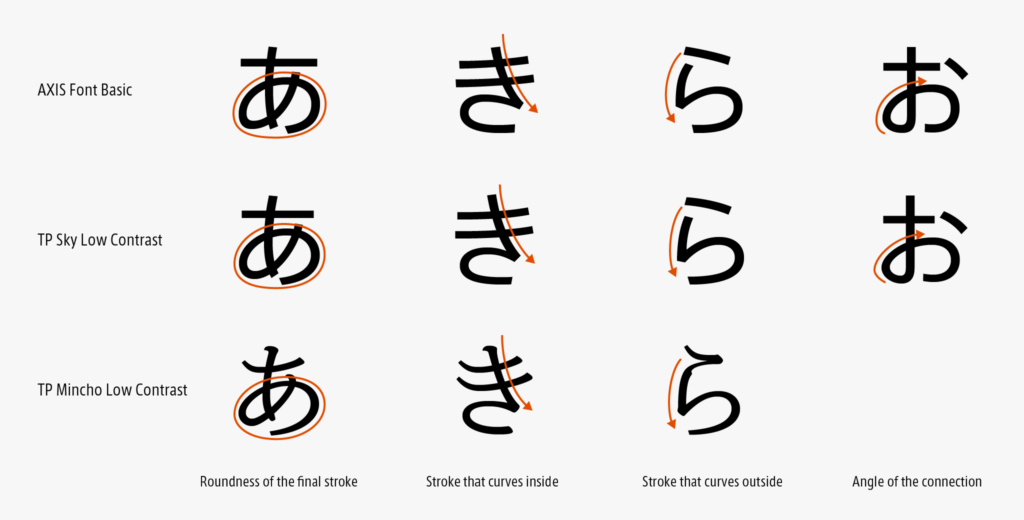
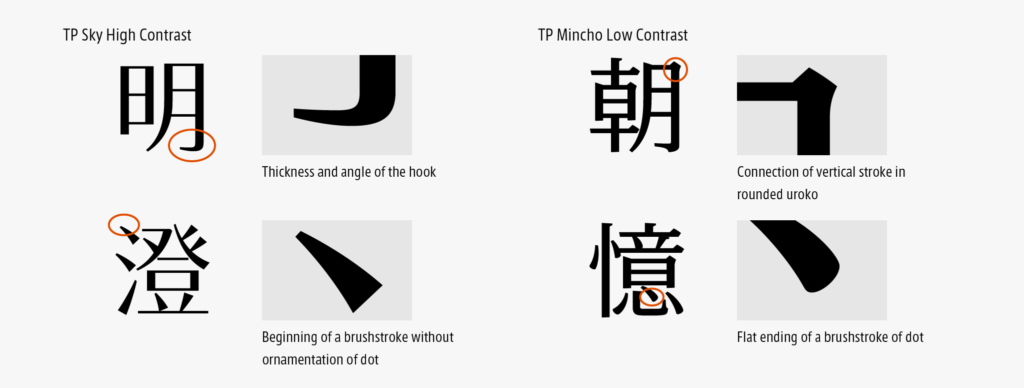
After a while, I started to notice the shapes and atmosphere of TP fonts.
The above-mentioned points are my view. As I think it differs by person, I’m curious to know which parts are used by other people to distinguish these fonts.